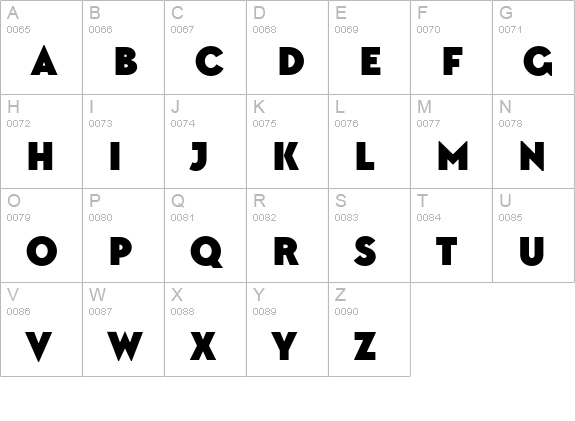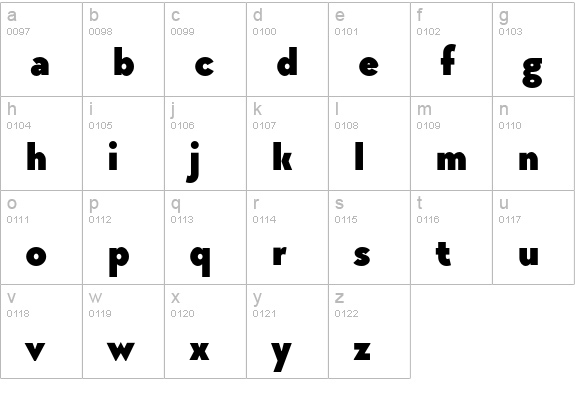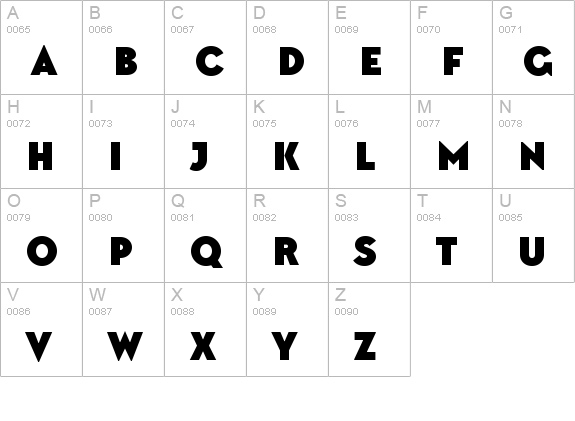
TT Chocolates Black is a maximum-weight, dramatic variant in the TT typeface family \xE2\x80\x94 well suited to maximum-impact headlines, posters, and packaging.
TT Chocolates Black is a stunning and versatile font that exudes elegance and sophistication. With its bold and striking design, this typeface is perfect for creating eye-catching headlines, titles, and branding materials. The timeless appeal of TT Chocolates Black makes it a popular choice for designers looking to make a bold statement. The best part? TT Chocolates Black is available for free download at FontsMarket.com. This means you can easily access this high-quality font and use it in your projects without any cost. Whether you're working on a personal or commercial project, TT Chocolates Black is a fantastic choice that will elevate your designs to the next level. Don't miss out on the opportunity to add TT Chocolates Black to your font collection. Download it for free today and start creating stunning designs that stand out from the crowd.